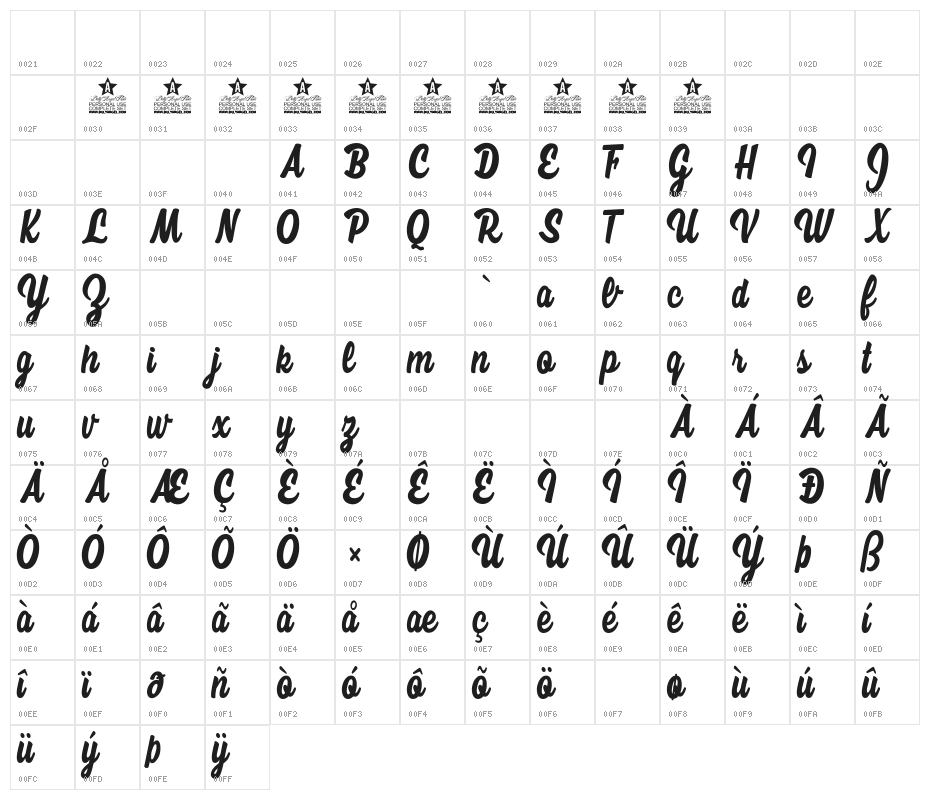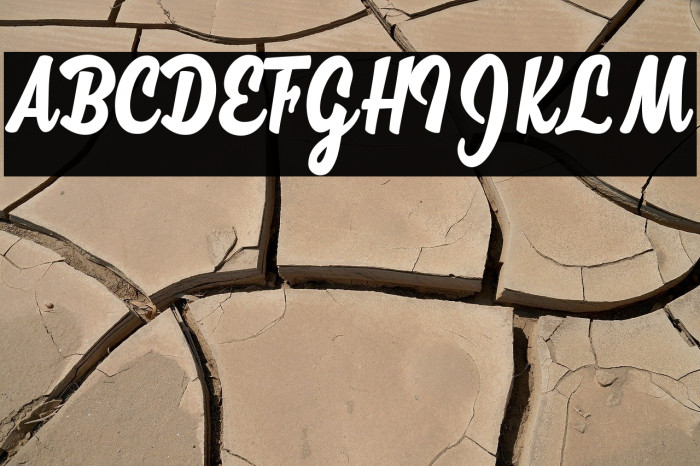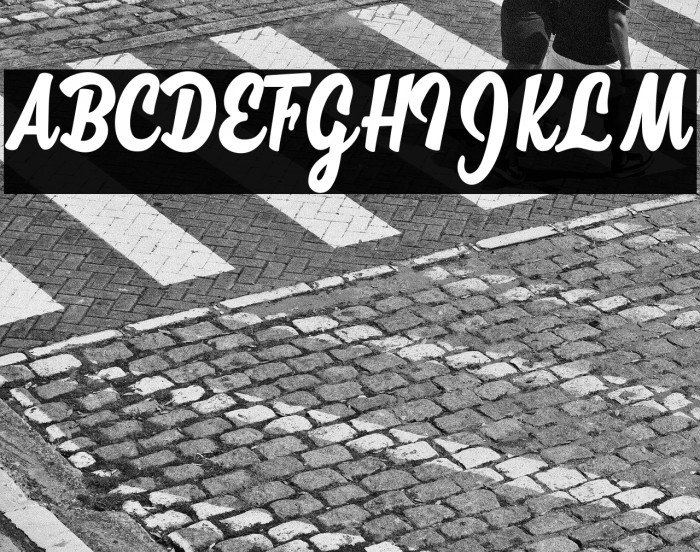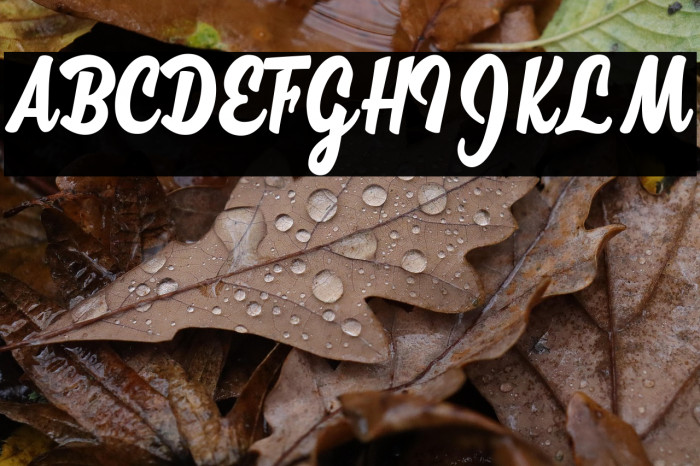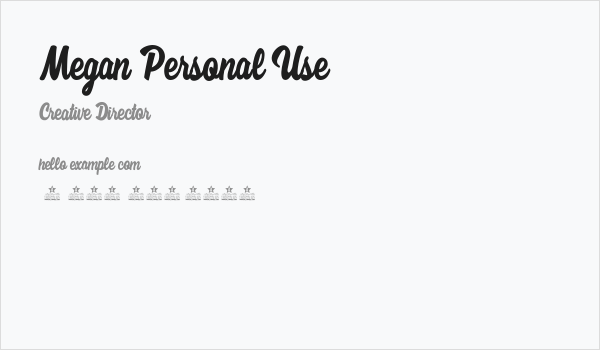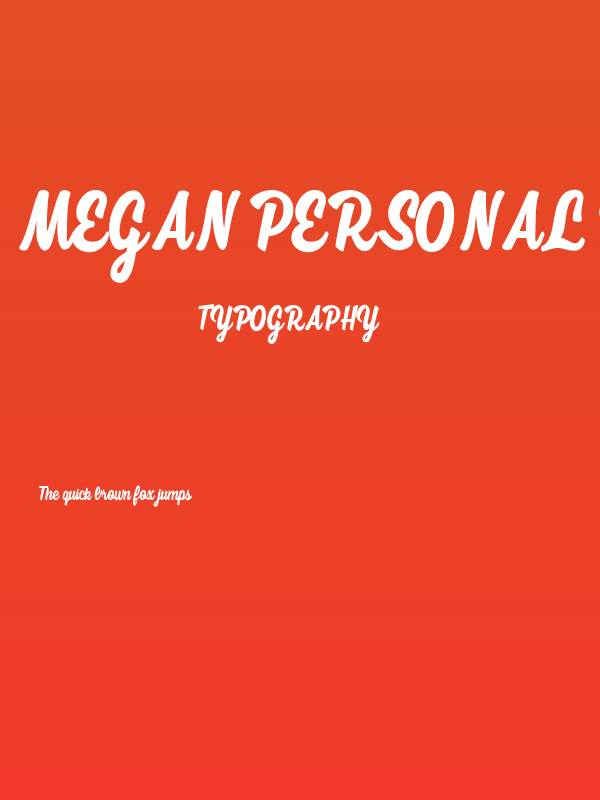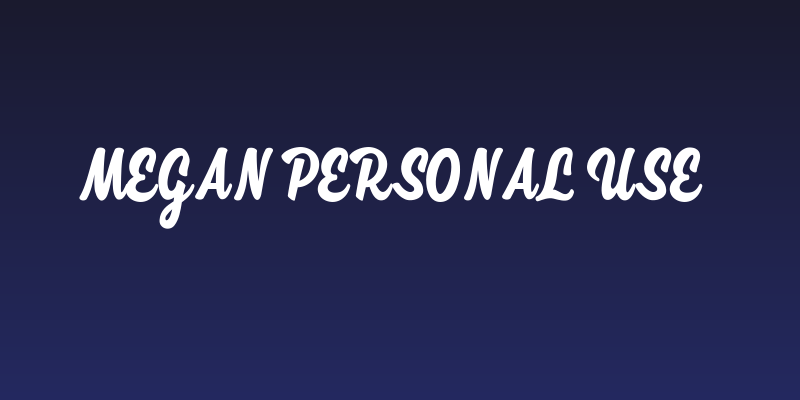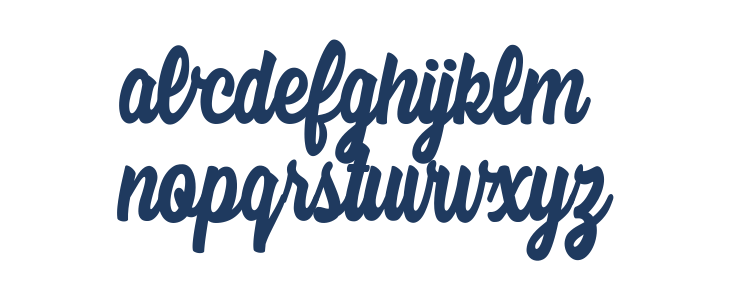
Megan Personal Use Font
Megan Personal Use Description
This font features a bold, cursive style with smooth, flowing lines that give it a handwritten appearance. The characters are connected, enhancing the script's fluidity and elegance. The uppercase letters are slightly larger and more pronounced, while the lowercase letters maintain a consistent height, contributing to a harmonious look. The font's boldness ensures high visibility, making it suitable for various decorative purposes. The special characters are integrated seamlessly, maintaining the overall aesthetic. This font exudes a modern yet classic charm, perfect for adding a personal touch to any project.